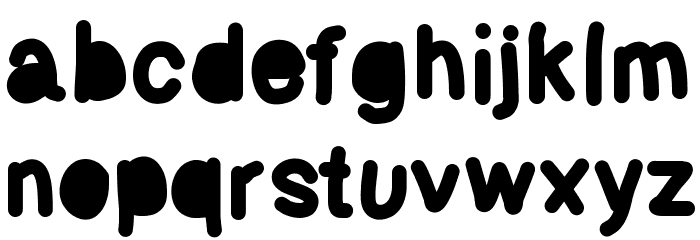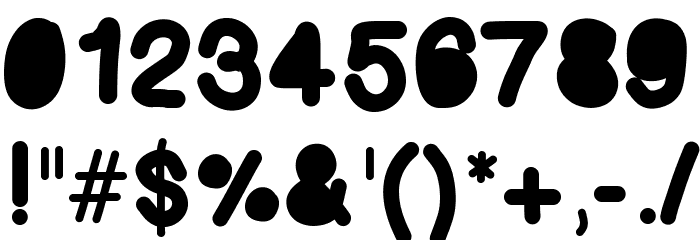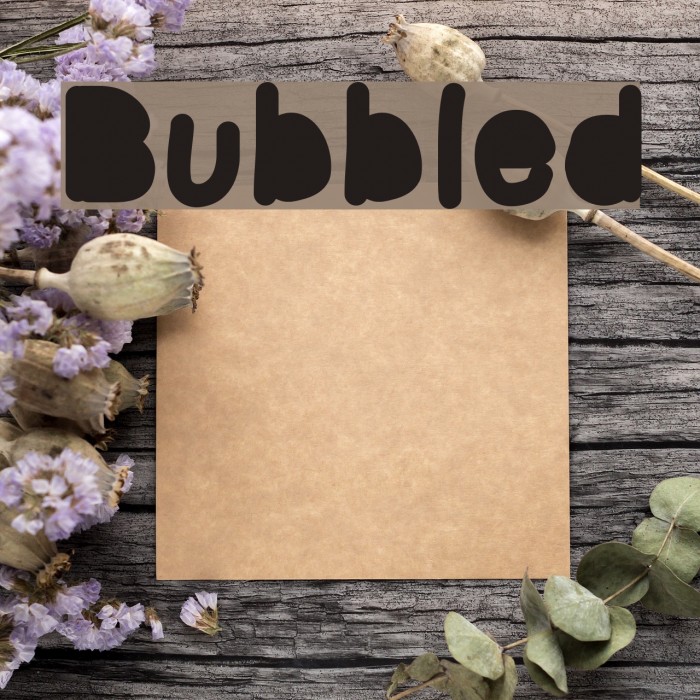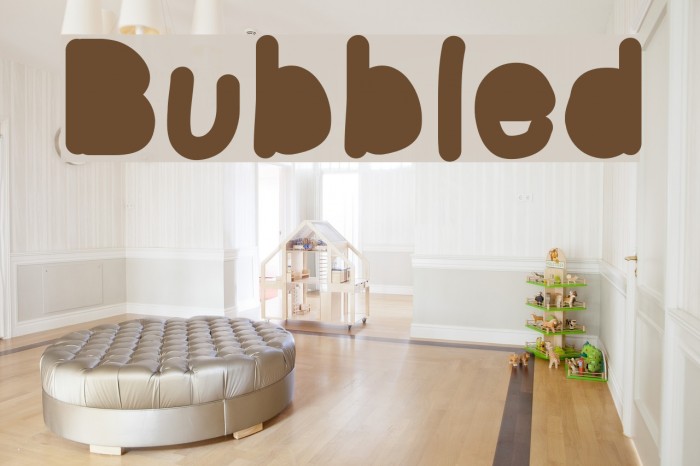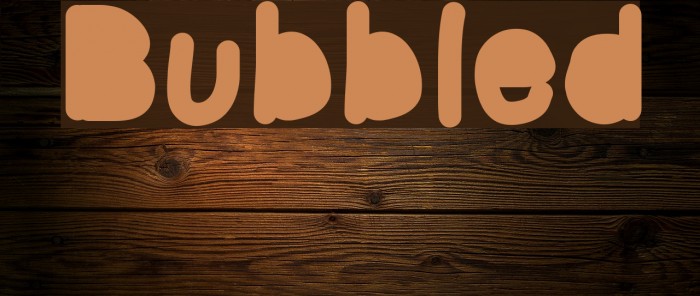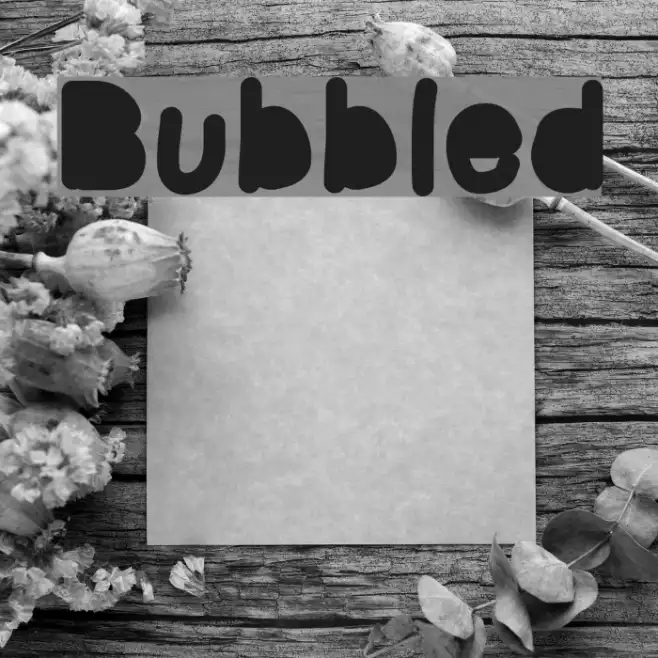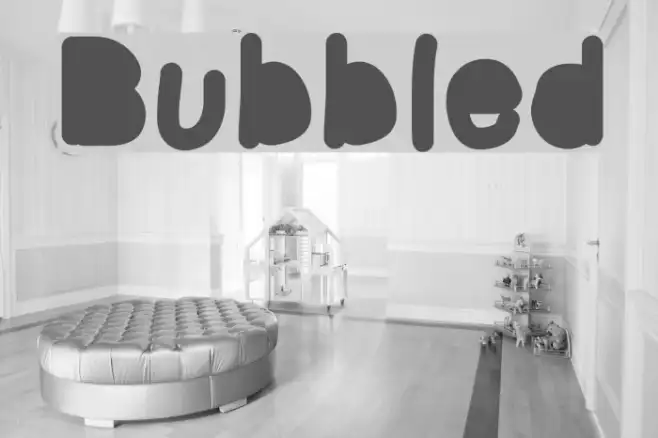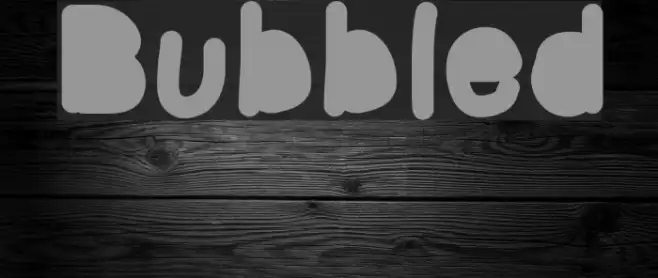
Bubbled Font
This playful and bold font features rounded, bubbly characters that exude a sense of fun and whimsy. The letters are thick and substantial, with a uniform stroke width that gives them a cohesive look. The rounded edges and soft curves create a friendly and approachable feel, making it ideal for projects that aim to convey warmth and friendliness. The font maintains consistent proportions across uppercase, lowercase, and numerical characters, ensuring readability while adding a touch of personality. Its unique style is perfect for grabbing attention and making a statement.
A playful, bold font with rounded, bubbly characters.
- Proposed Projects: Ideal for children's books, playful branding, party invitations, and creative posters.
- Overall Style: Playful